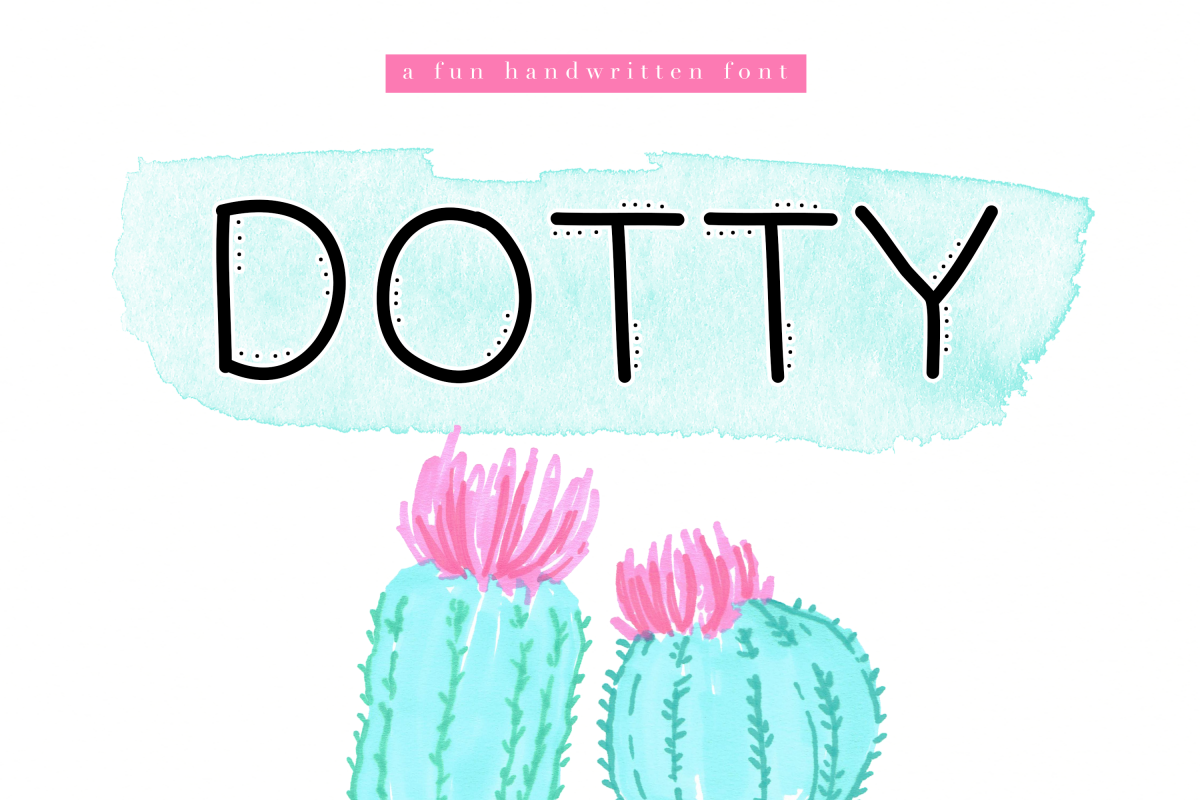
Dotty - A Fun Handwritten Font
Dotty is a fun handwritten font.
The letters are unique..and dotty!
This font is perfect for quotes, headings, blogs, logos, invitations and more!
This font does not include accent characters.